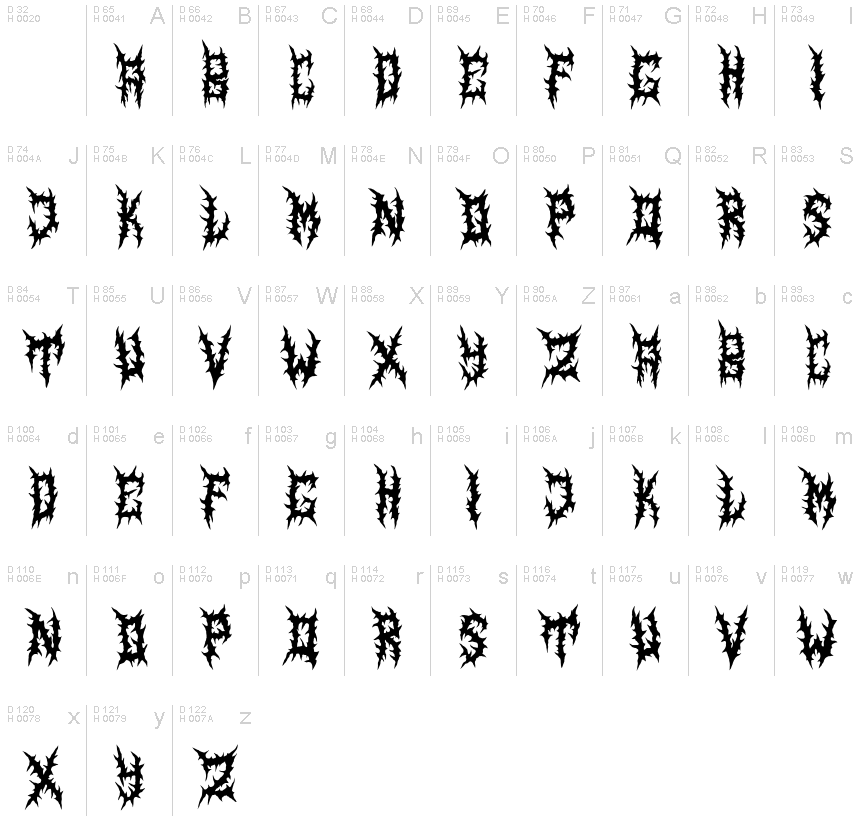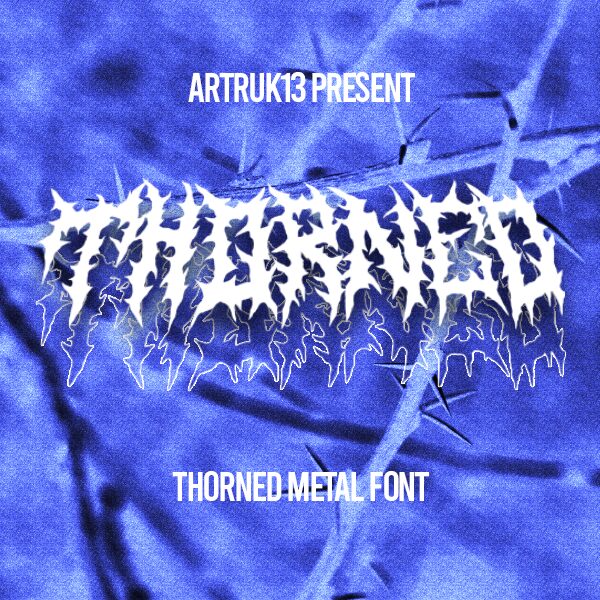
THORNED
Thorned by 47 is a display font that exudes an eerie and spine-chilling aesthetic. With jagged, spiky edges and a dark, foreboding character, it instantly evokes a sense of dread perfect for any horror-themed design. Each letter appears as though it's been etched with sharp thorns, creating a visually gripping and menacing appearance.
Ideal for Halloween events, horror movie posters, or any project needing an unsettling touch, Thorned is undeniably striking. Its unique style ensures that your message won't go unnoticed while adding a layer of tension and intrigue. Utilize this font to bring your most frightful and creative designs to life.